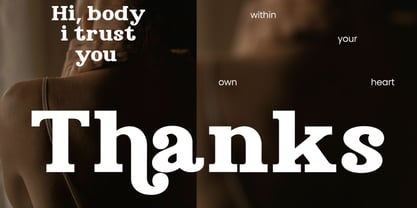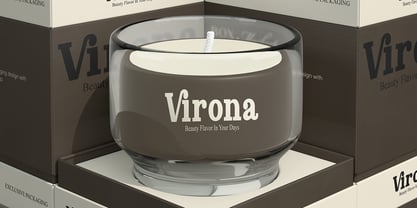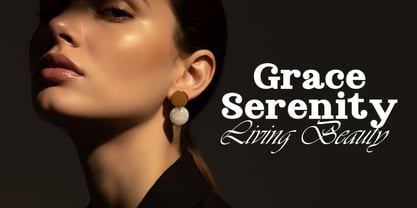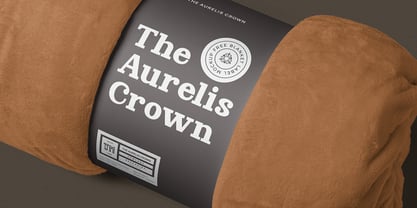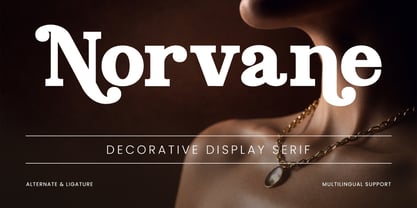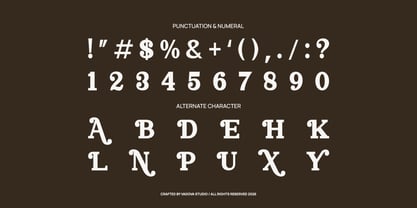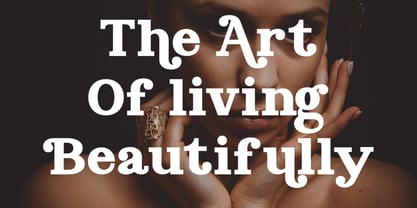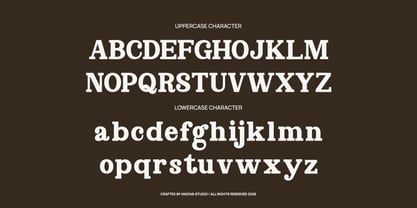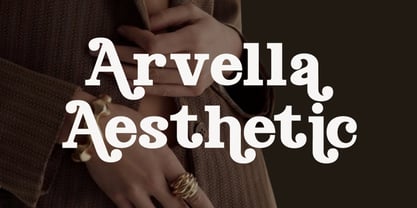
Norvane
by Vadova Std
The Norvane Font Family and published by Vadova Std. Norvane contains 1 styles. More about this family
Norvane is a decorative display serif typeface that combines bold classic structure with expressive curved terminals and distinctive serif details. The font includes uppercase and lowercase characters, numerals, punctuation, and stylistic alternates with ligature support for enhanced typography composition. Designed with strong contrast and elegant proportions, it delivers a refined yet eye-catching presence suitable for high-impact headlines. Relevance and Use Cases This font is highly relevant for projects that require strong visual identity and expressive typography, especially in luxury branding, fashion editorials, premium packaging, and high-end marketing materials. Its decorative serif style makes it effective for headlines, logos, magazine layouts, and creative campaigns where elegance and bold character are essential.
Foundry: Vadova Std